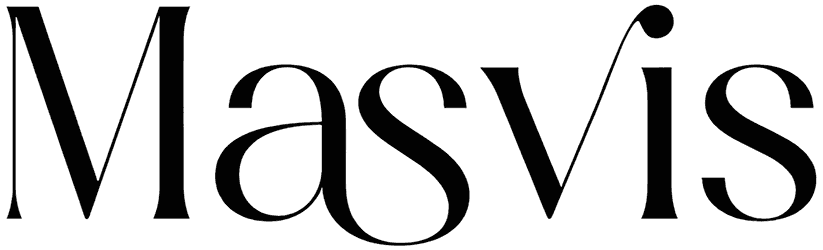
Masvis Font
This time, let’s have an original and confident presentation with a classical but modern design. Masvis is a unique serif font that comes in a timeless and nice form. If you want your ideas to be reflected in your designs, like logos, posters, and movies with a well-known mood, consider this versatile font with its two versions.